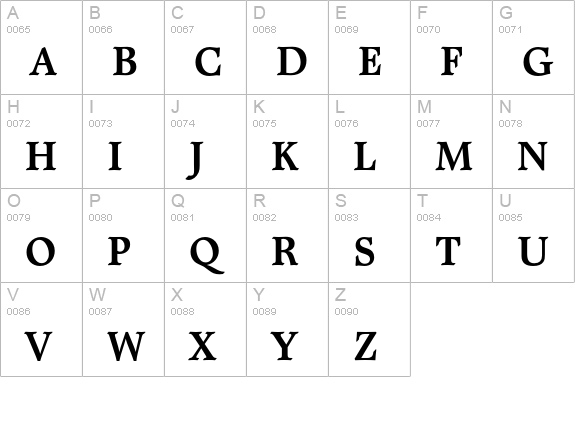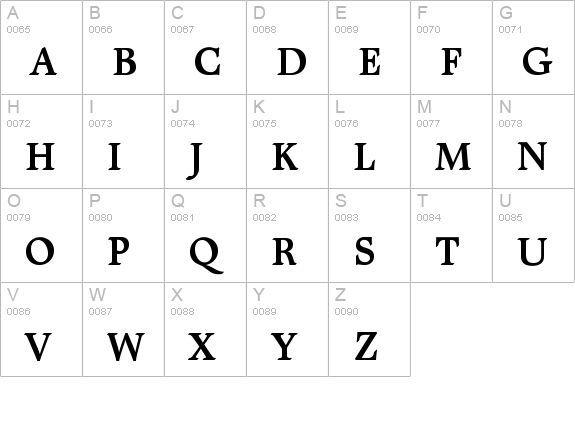
Matt Antique Bold is a strong, high-contrast variant in the Matt typeface family \xE2\x80\x94 well suited to headlines, attention-grabbing titles, and strong calls-to-action.
Introducing the elegant and timeless Matt Antique Bold font, a classic typeface that exudes sophistication and charm. This versatile font is perfect for adding a touch of vintage flair to your design projects. With its bold and distinctive letterforms, Matt Antique Bold commands attention and makes a statement. What makes this font even more appealing is that it is available for free download at FontsMarket.com. You can easily access this stunning typeface and incorporate it into your creative works without any cost. Whether you're working on branding, packaging, invitations, or any other design project, Matt Antique Bold is sure to elevate your creations and leave a lasting impression. Embrace the beauty and versatility of this font today and make your designs stand out from the rest.